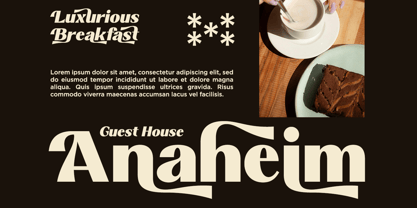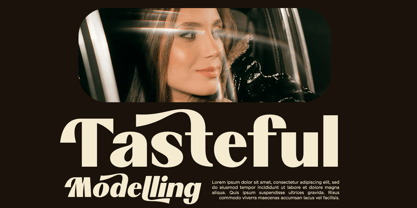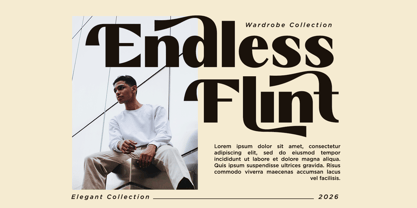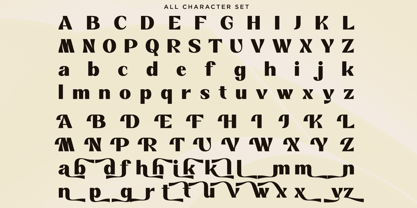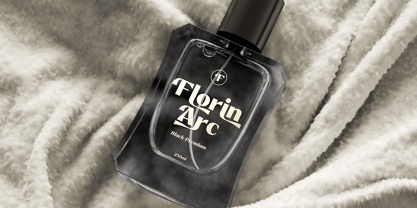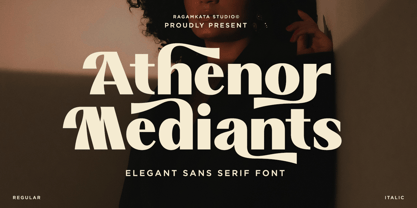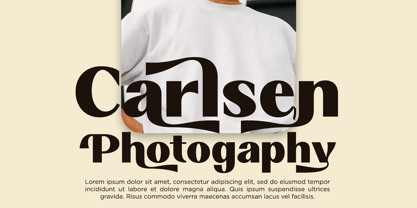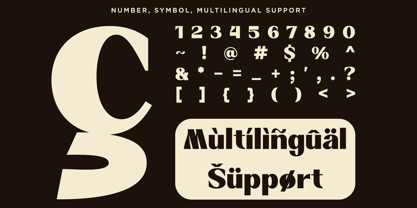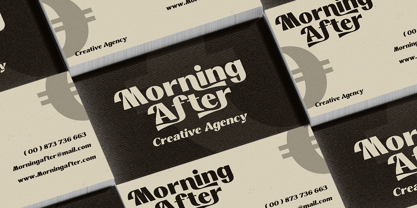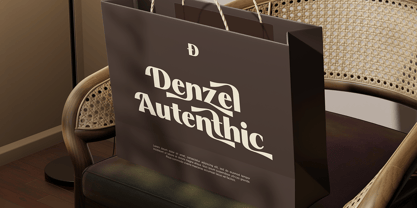
Athenor Mediants
Die Schriftfamilie Athenor Mediants wurde von Yogiswhara Dio Prakoso Riadi entworfen und von RagamKata veröffentlicht. Athenor Mediants enthält 2 Stile und Familienpaketoptionen.
Athenor Mediants is an elegant modern sans-serif font that seamlessly blends classical sophistication with contemporary design. With its graceful curves, distinctive mediant-style strokes, and refined contrast, this typeface offers a luxurious yet confident visual presence. The unique letterforms exude a timeless and expressive quality, making it perfect for projects that require personality without compromising readability. Ideal for branding, logos, fashion editorials, magazine headlines, luxury packaging, posters, social media graphics, website headers, and book covers, Athenor Mediants stands out in any application. Thank You! Ragamkata